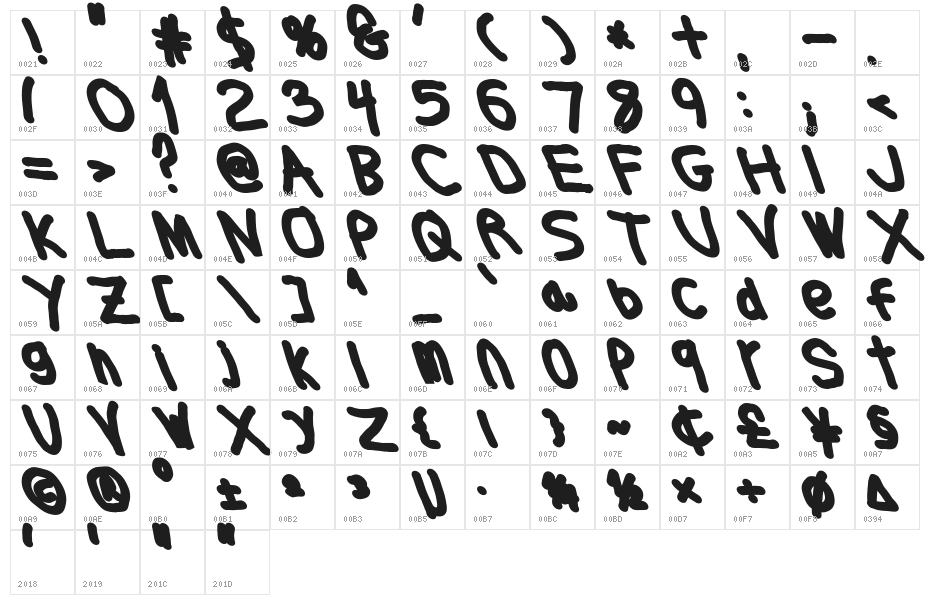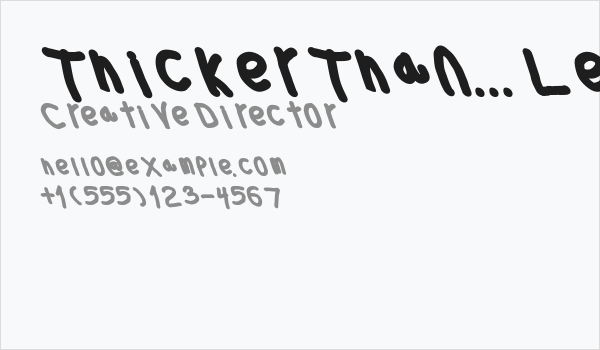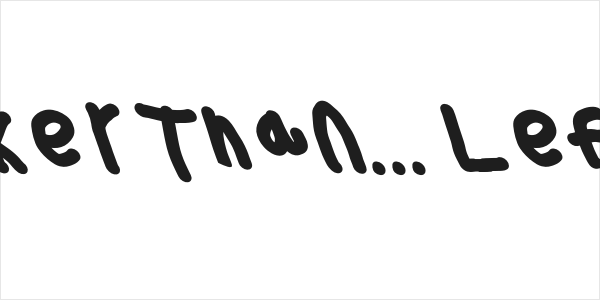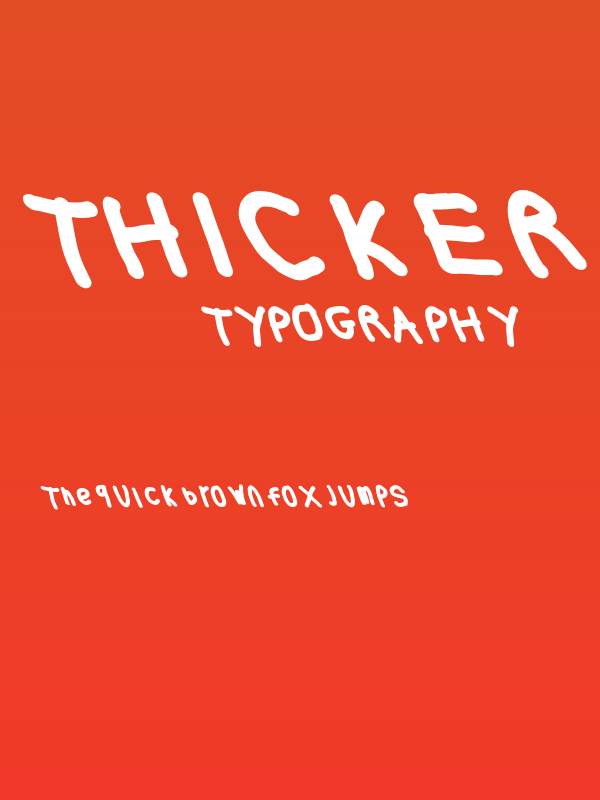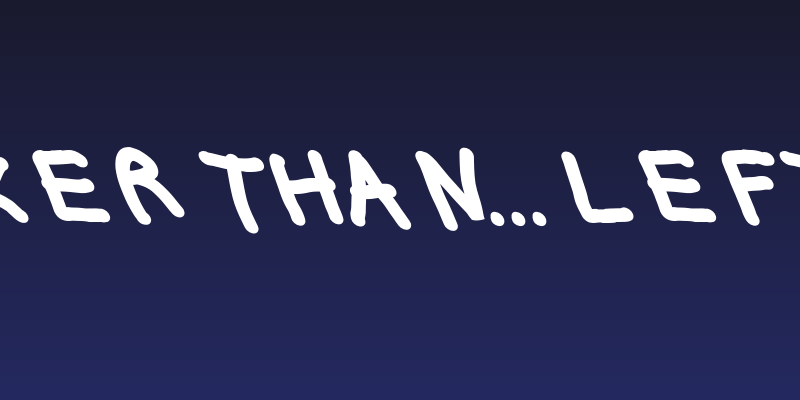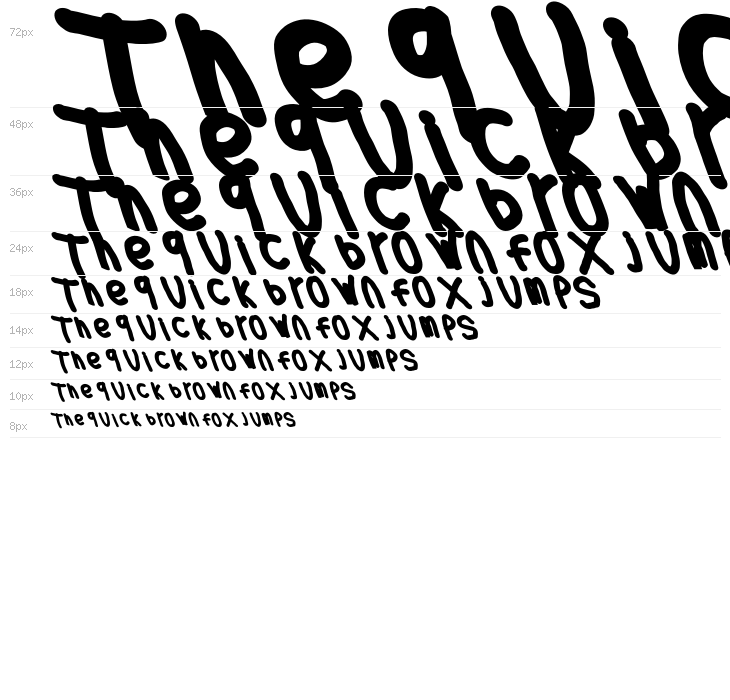
Thicker Than... Leftalic Font
Thicker Than... Leftalic Description
This font features a bold, hand-drawn style with thick strokes and a playful, informal appearance. The characters are slightly irregular, adding a whimsical and casual feel. The uppercase and lowercase letters maintain a consistent thickness, while the numbers and special characters follow the same design ethos. The overall look is reminiscent of a marker or brush pen, making it suitable for creative and artistic projects. The font's boldness ensures high visibility, making it effective for headlines or attention-grabbing text.
| Proposed Projects | Ideal for posters, children's books, comic strips, and creative branding. |